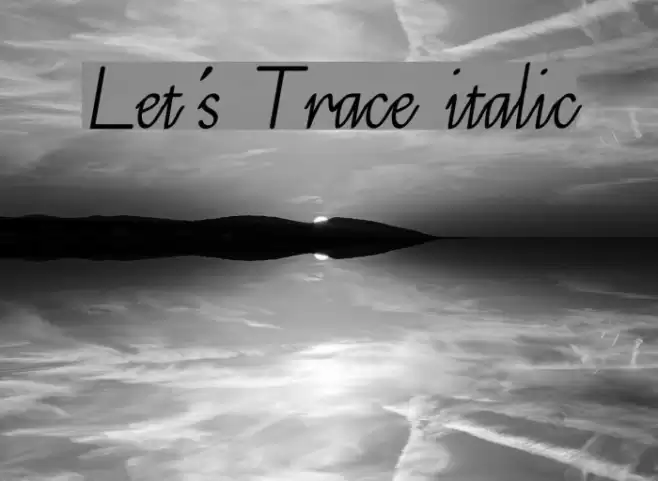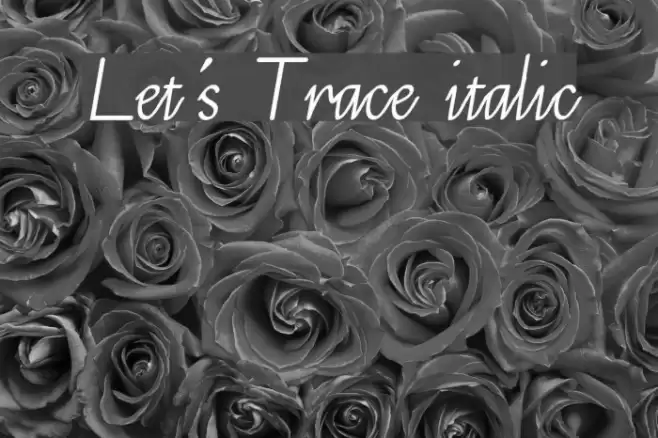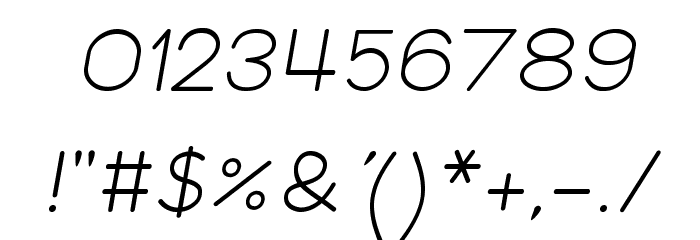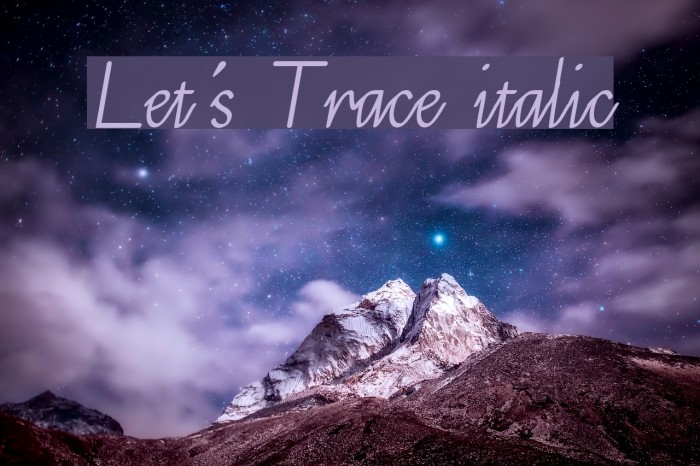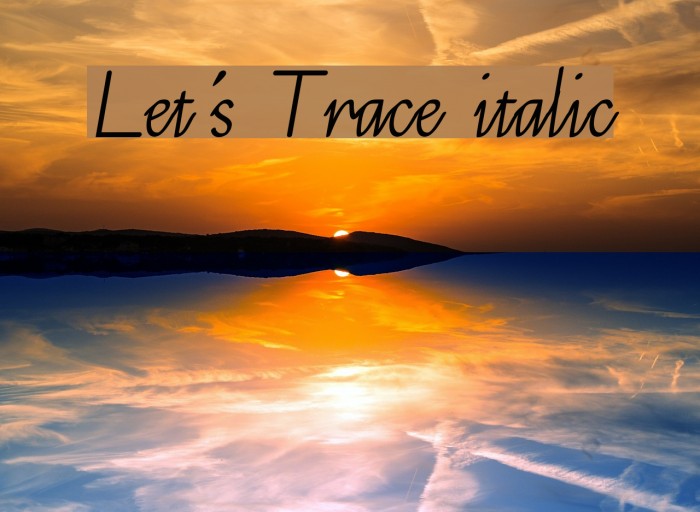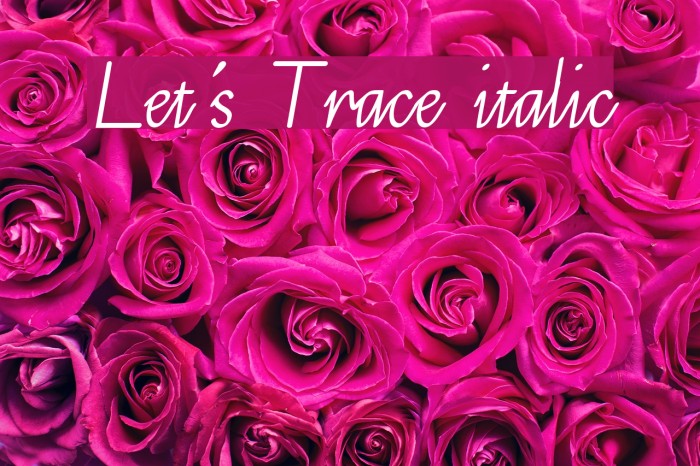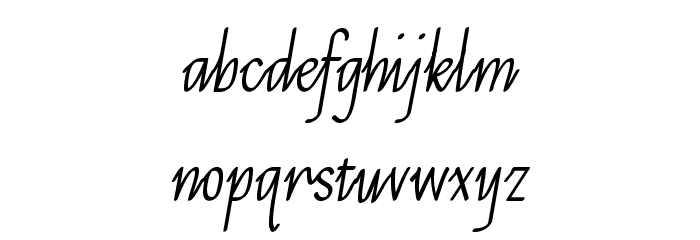
Let's Trace italic Font
Let's Trace italic Description
This font features a sleek, italicized style with a modern flair. The uppercase letters are elegantly slanted, providing a sense of motion and sophistication. The lowercase letters maintain a consistent slant, enhancing readability while adding a touch of elegance. The numbers are clear and distinct, following the same italicized style, making them suitable for both formal and creative contexts. Special characters are well-defined, ensuring versatility in various design applications. The overall appearance is clean and stylish, making it ideal for projects that require a contemporary yet refined look.
A sleek, italicized font with a modern and elegant style from Uncategorized fonts.
- Proposed Projects: Ideal for fashion magazines, branding, wedding invitations, and elegant website headers.
- Use Case: Headlines, Logos, Invitations